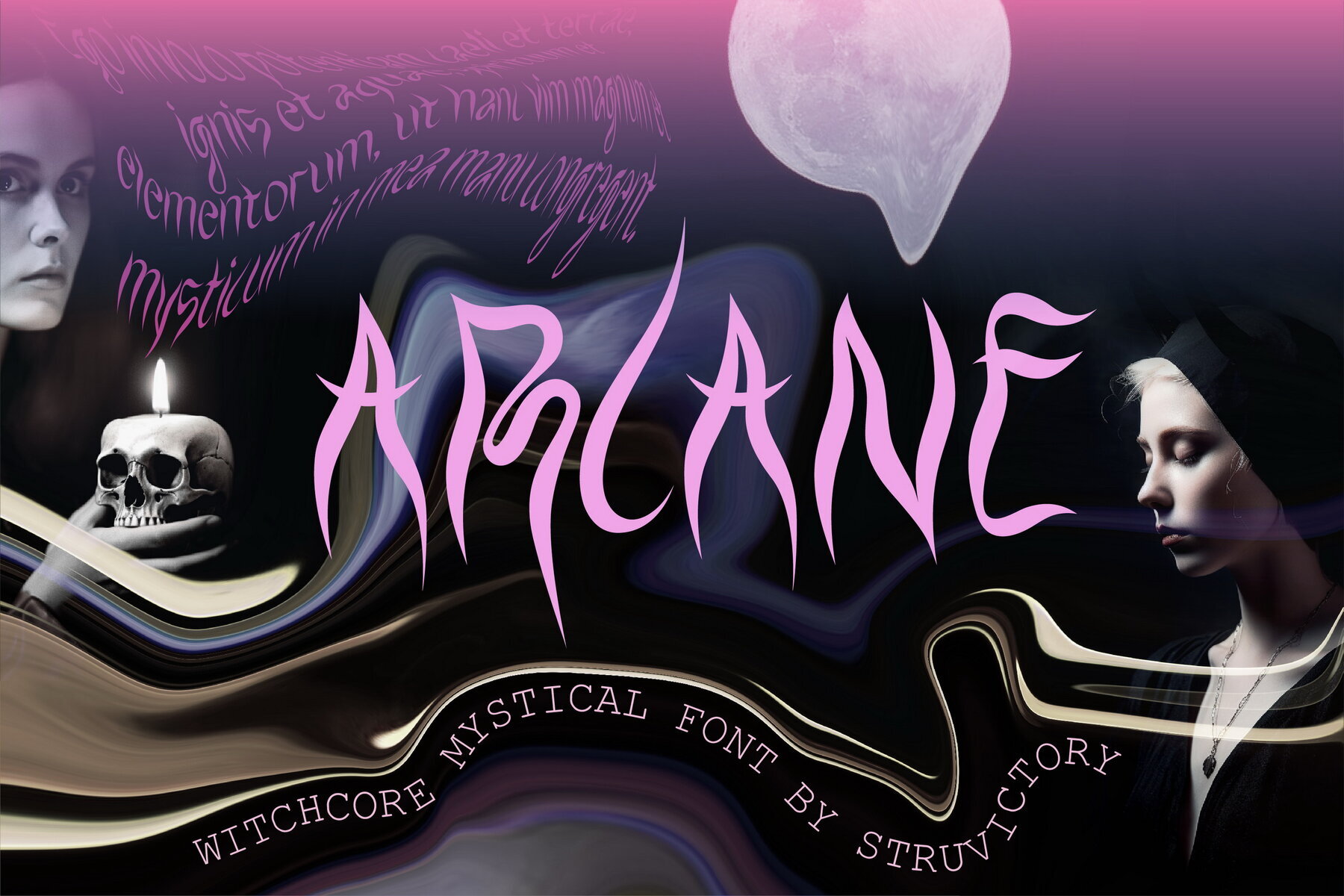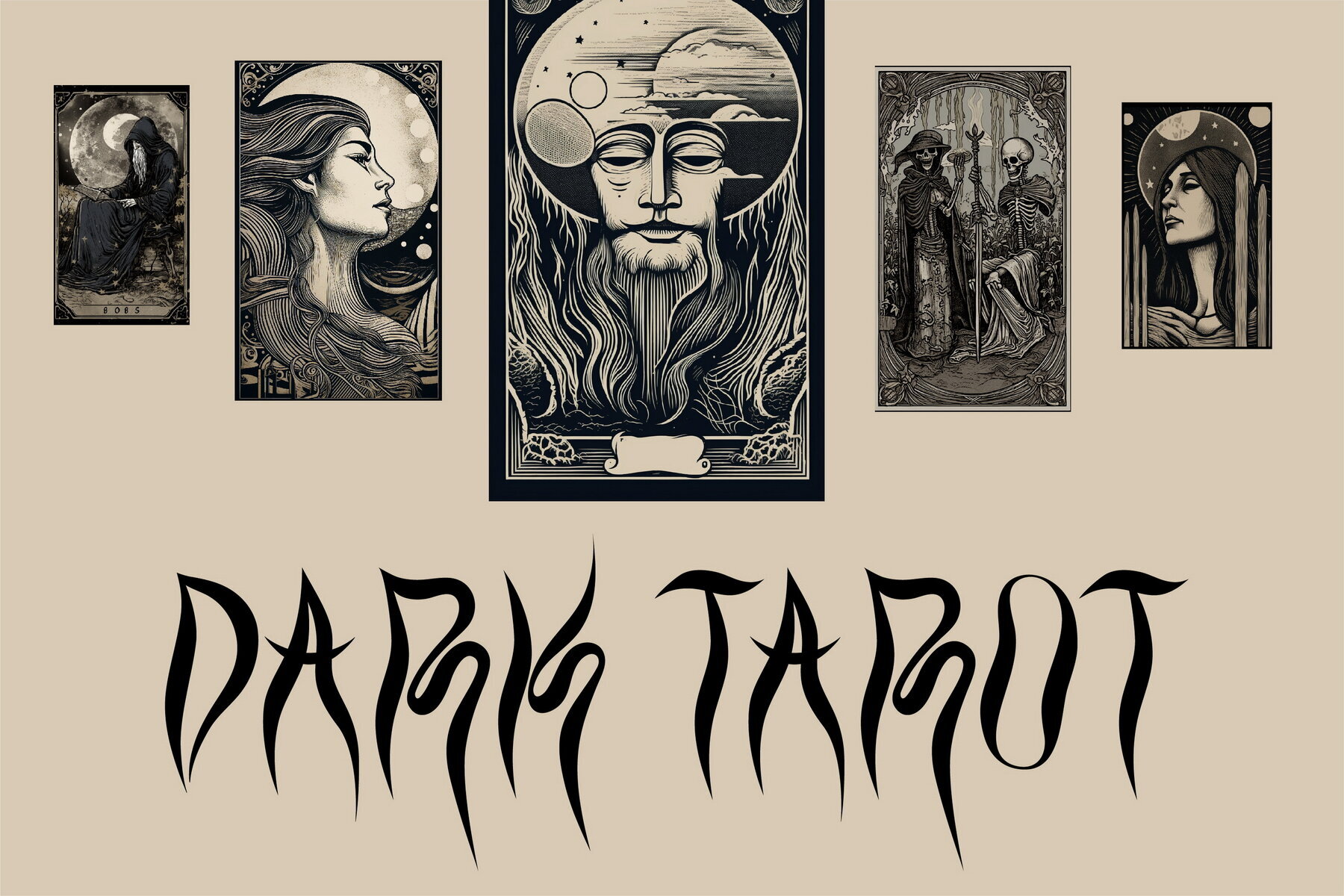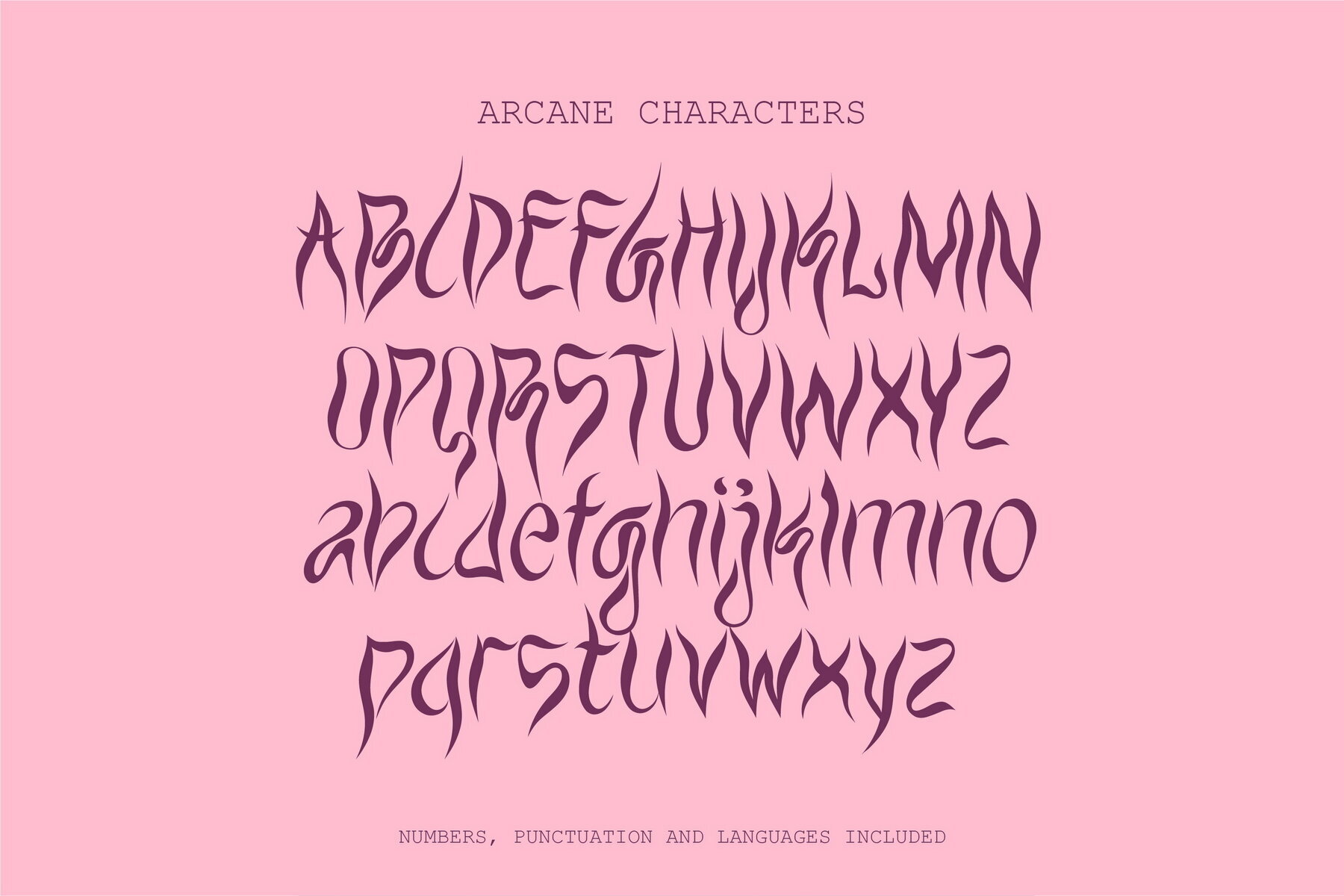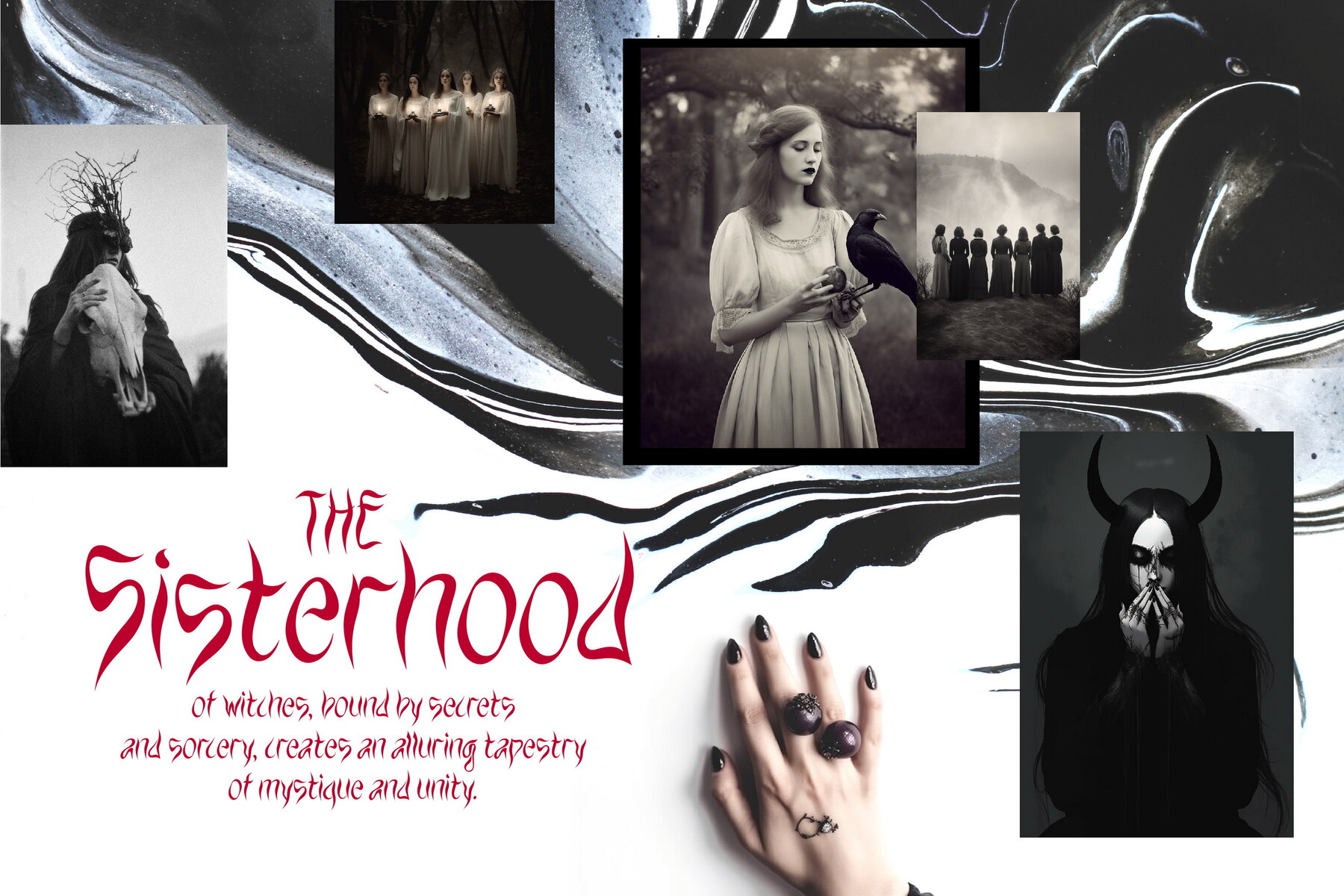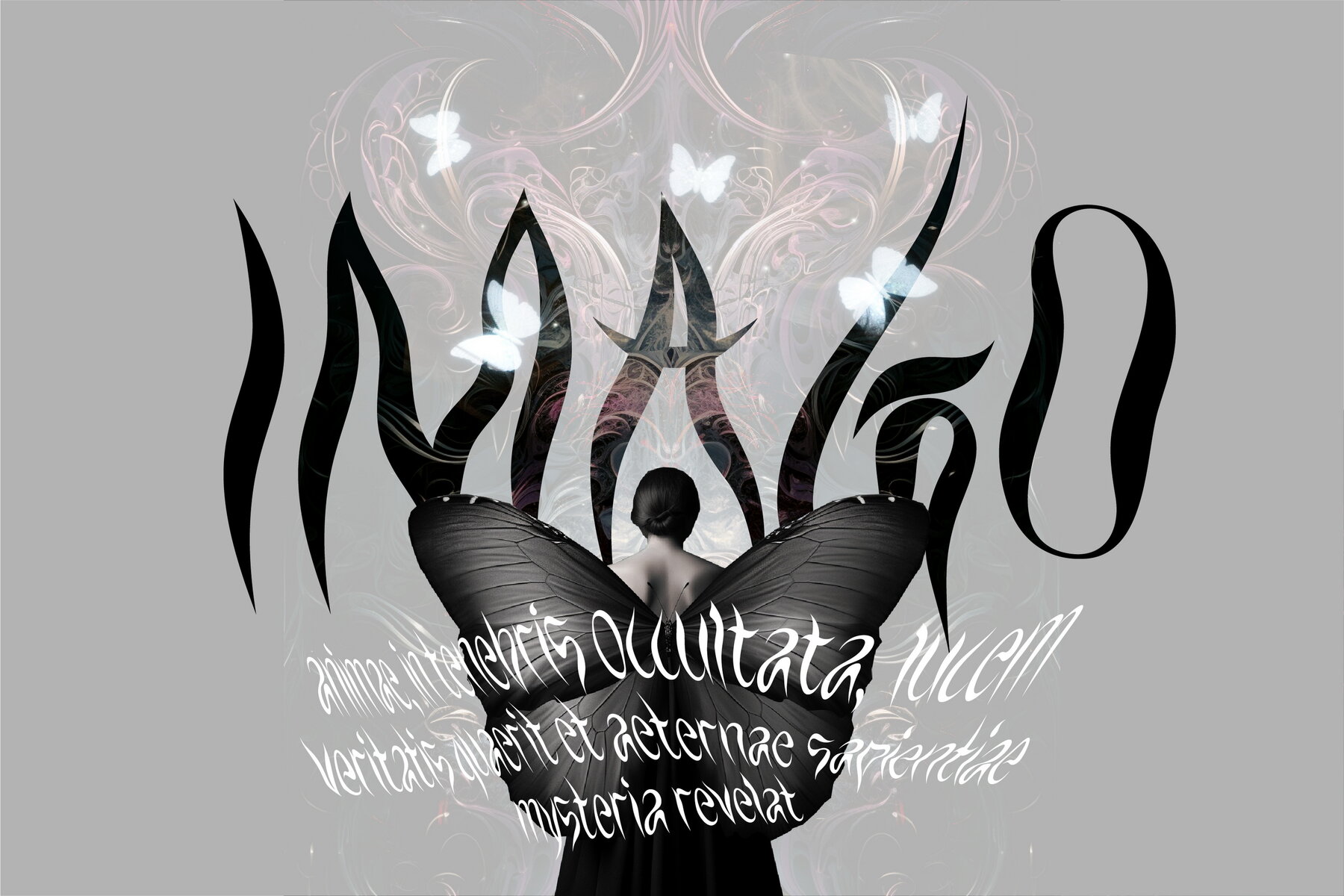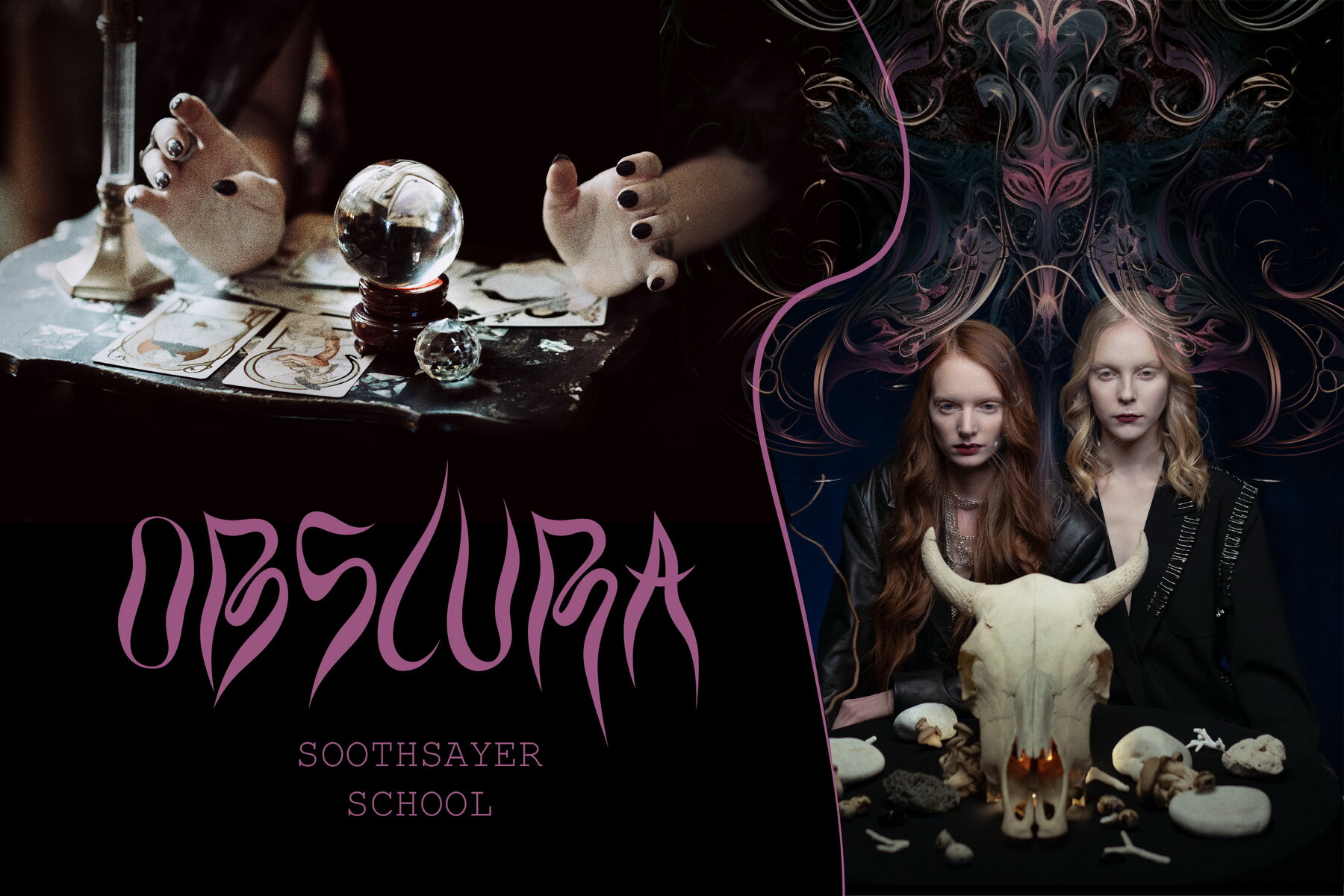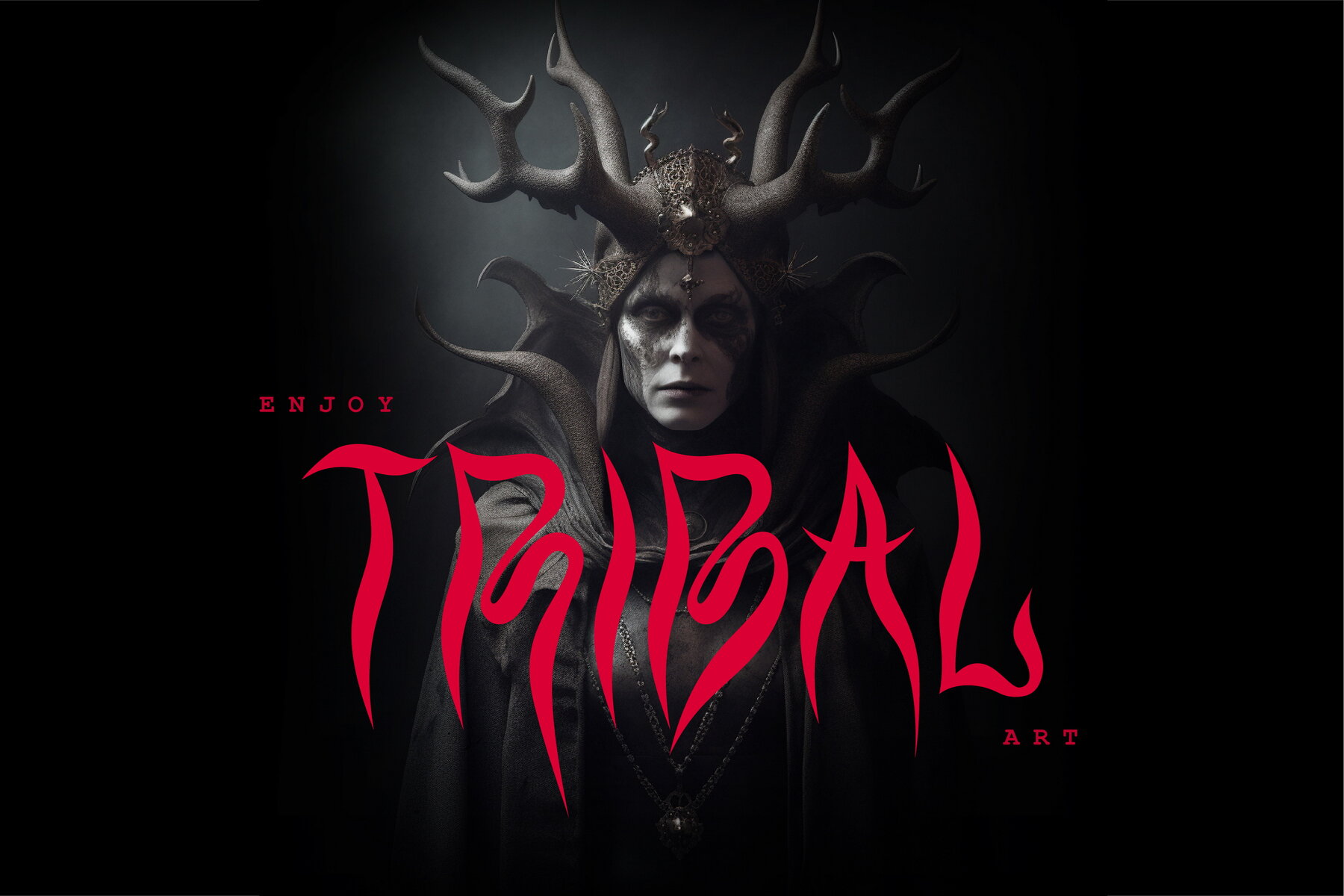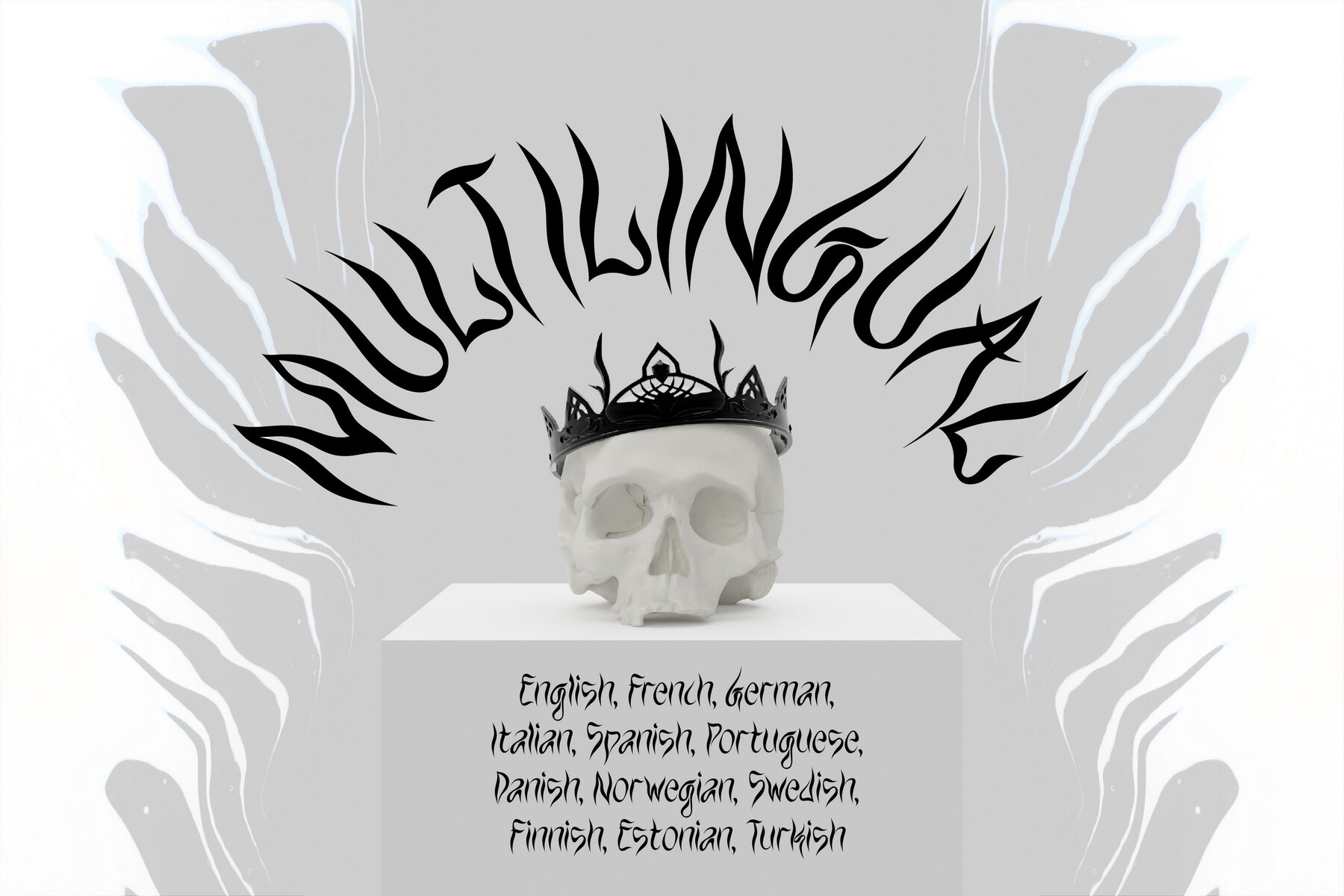
Arcane Font
Arcane Witchy Regular
Discover the enchanting "Arcane" font, imbued with the mystique of witchcraft and ancient spells. The curved line of the font resembles a witch's spell and the flame of fire. "Arcane" font will add a touch of magic to your projects, making it perfect for crafting spellbinding design or a unique brand identity.